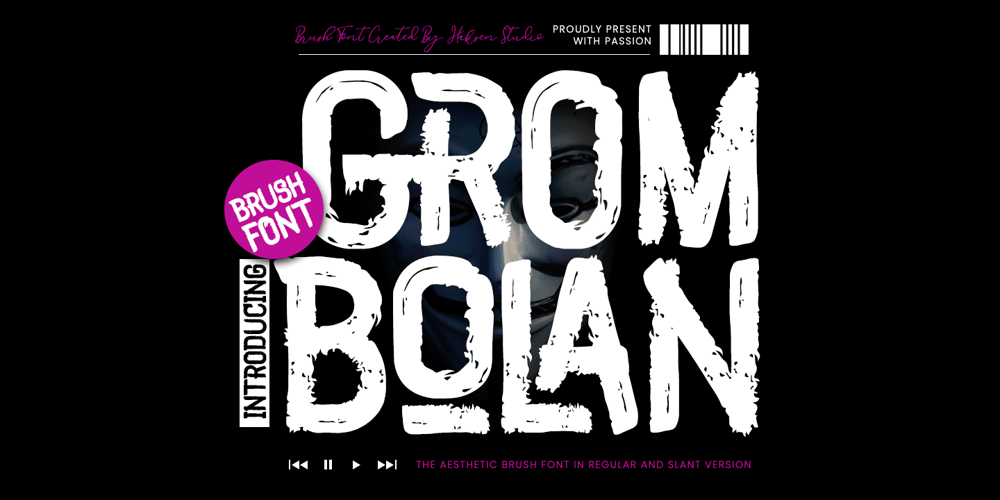
Egrombolan Font Family was designed by Sarwo Edhi Prayitno and published by Haksen. Egrombolan contains 2 styles and family package options. Egrombolan is a natural brush script with texture and similar with hand written. I design it with real write my hand, I really hope you will enjoy it so much when using this font.I love using this one with layer masks in Photoshop, really look natural written. Egrombolan includes over couple ligatures to make everything look totally hand-doneThanks.